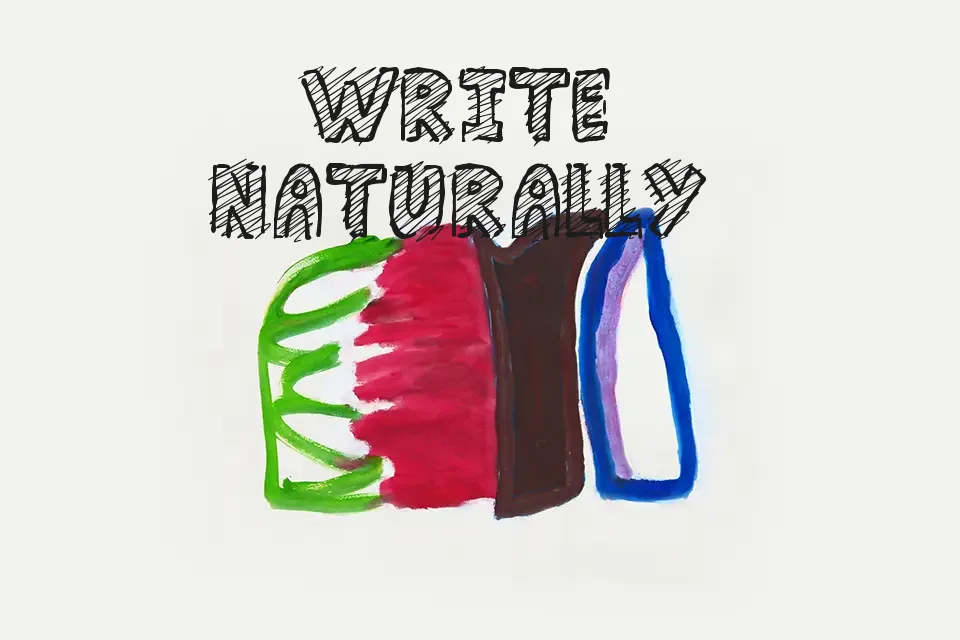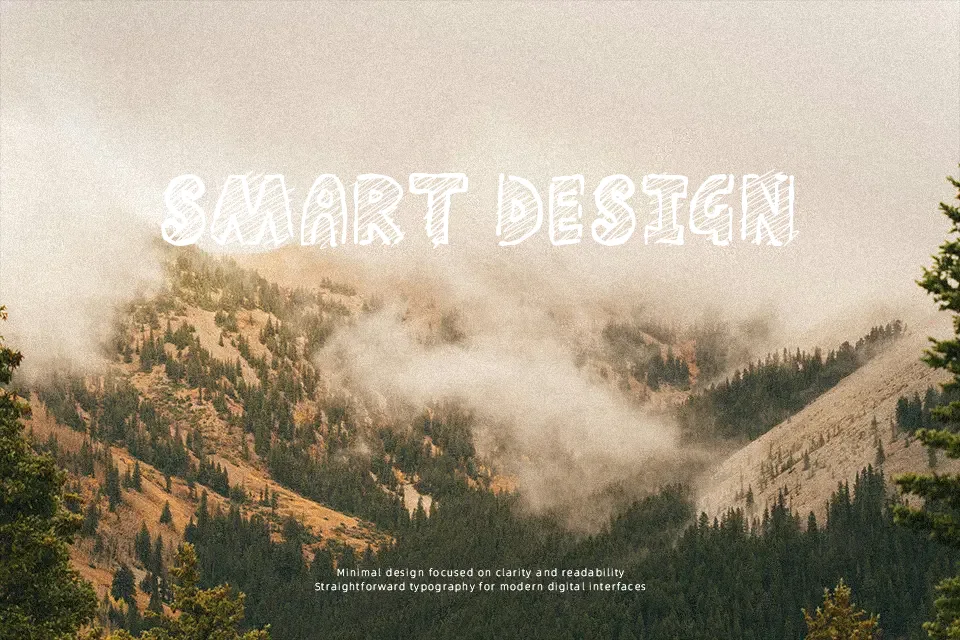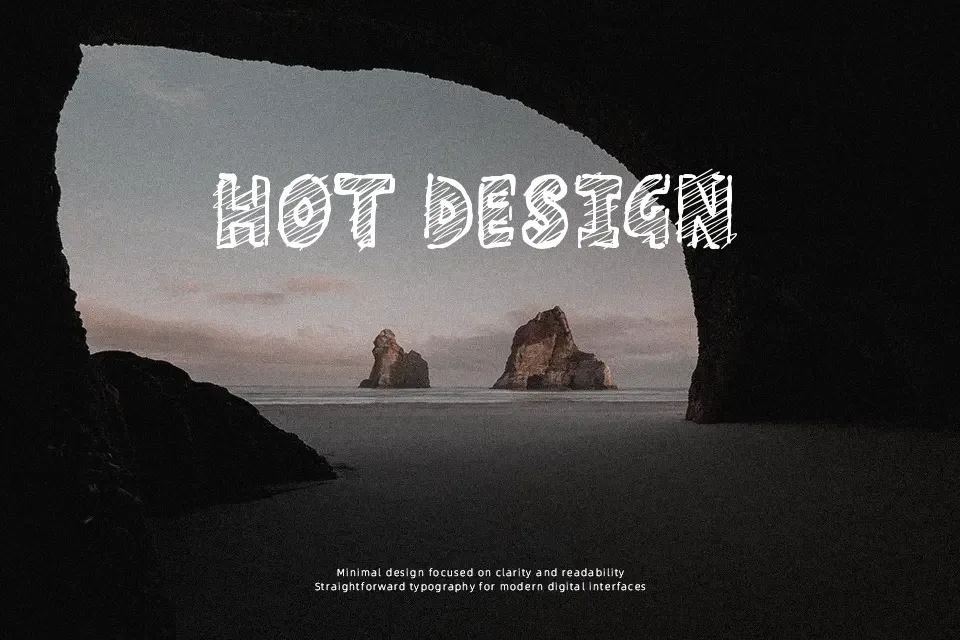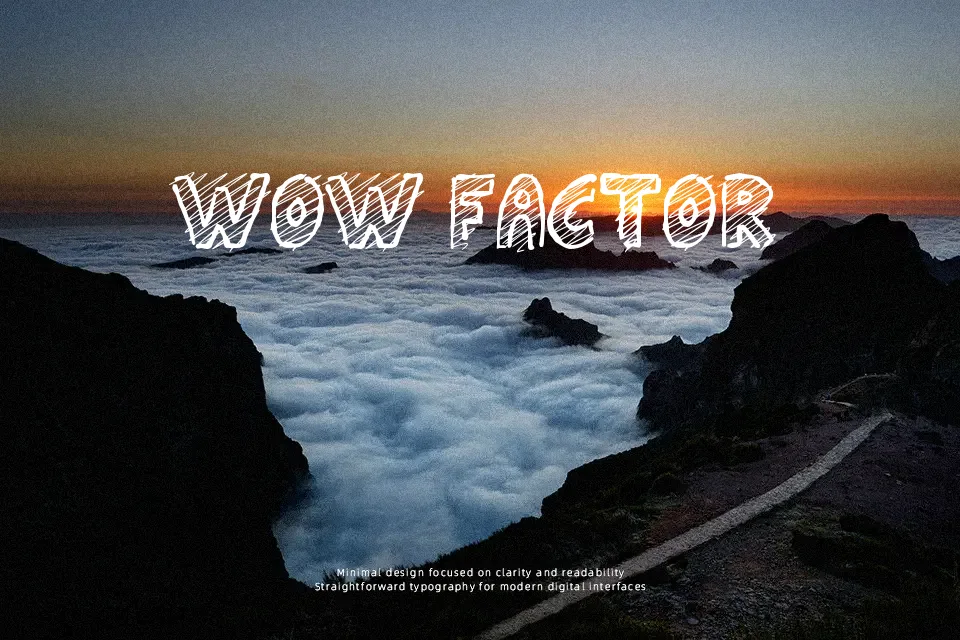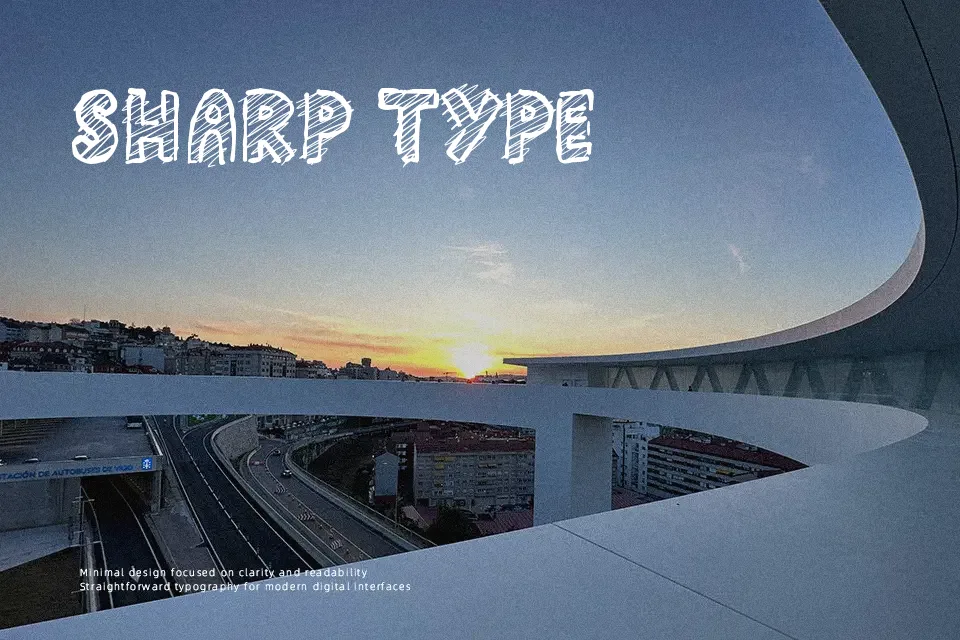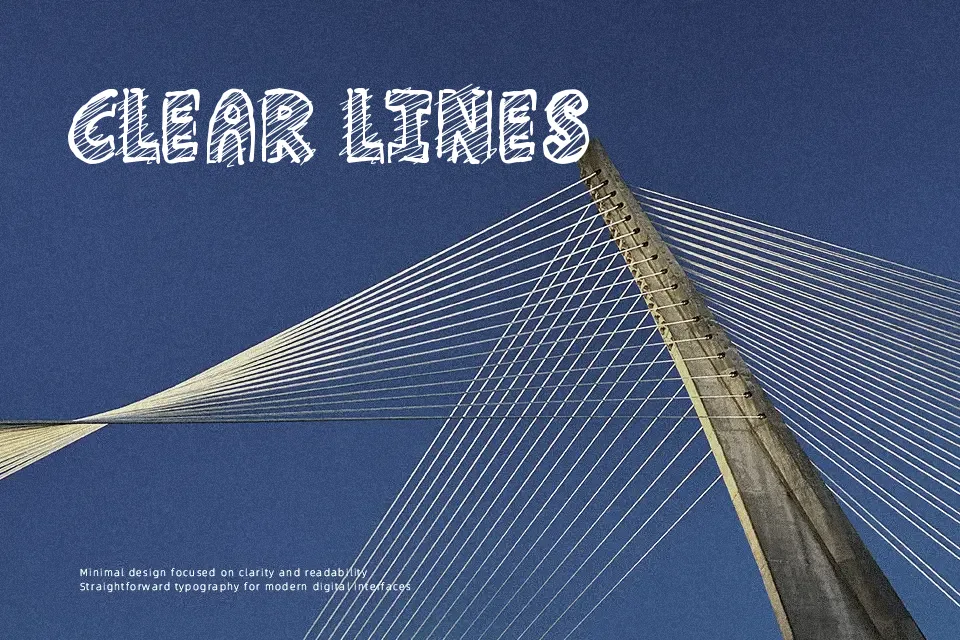
Schools Out!!! Font
Schools Out!!! Font establishes an expressive visual presence through heavy, hand-drawn character geometry and deliberately varied stroke widths. The letterforms display soft rounded corners, lively contours, and uneven baselines that generate spontaneous rhythmic movement across short text lines. Generous interior counters preserve individual character recognition, while close proportional spacing keeps headline compositions compact and energetic. This design delivers outstanding clarity on merchandise graphics, summer camp banners, and toy packaging where bold personality is paramount. However, the heavy stroke weight and whimsical irregularities reduce legibility in continuous text blocks. Dense body paragraphs quickly feel cluttered, making the typeface far more effective when reserved strictly for prominent display settings.
– animated title sequences
– children’s book covers
– youth apparel graphics
– toy packaging headers
– continuous body text
– corporate annual reports
– dense editorial columns
– technical documentation
Perfect for branding, headline, and kids, with a bold and cartoon style.